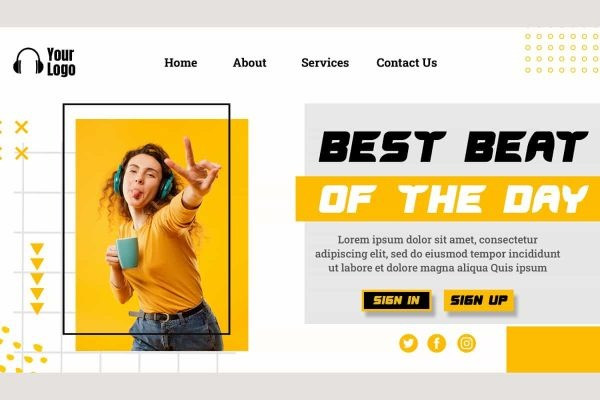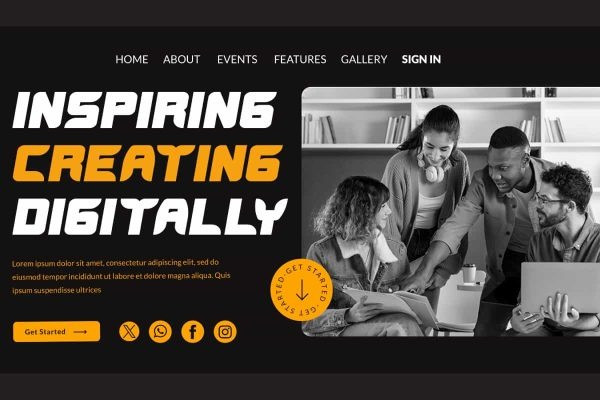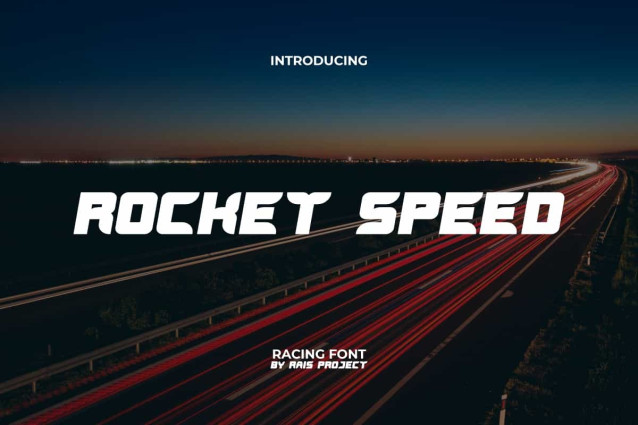
Rocket Speed Font
Rocket Speed Font is a playful racing display font, created by RaisProject. This font has a shape that is similar to the numbers on a digital watch so it can provide a cool sporty theme. It will be good for any designs, such as stationery, custom design, poster, signage, brand image, advertisement, invitation, label, marketing material, product packaging, quotes, website page, and more!
Rocket Speed Font includes a full set of ALL CAPS for Uppercase and Lowercase Letters, Numerals, and large range of Punctuation. This attractive font will be suitable for various industries, such as automotive, sports, fashion, game, barber shop, cafe, event or festival, photography, printing, publishing, etc.